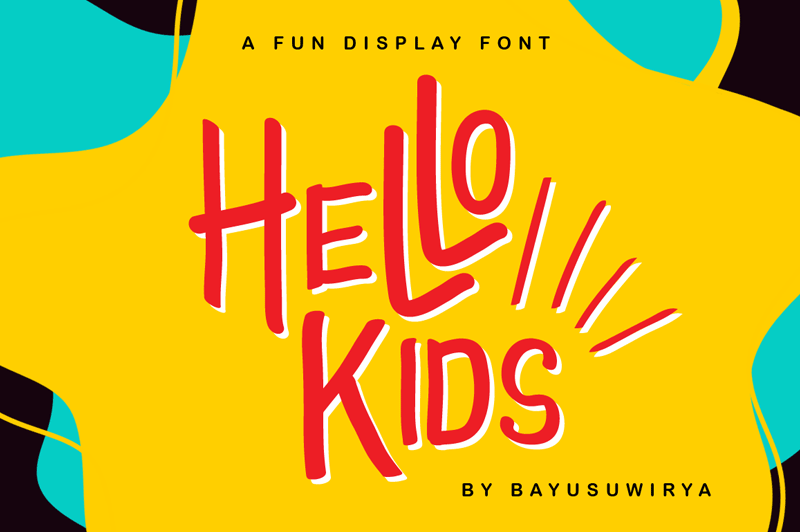
Hi Everyones,. "Hello Kids" is a joyful and charming display font. It will add a whimsical twist to any design project! For unlock all benefit of this font you can purchase at my store: https://www.creativefabrica.com/designer/illushvara/ https://graphicriver.net/user/illushvara/portfolio NOTE: This demo font is FREE for PERSONAL USE ONLY! But any donation are very appreciated because your donation will help us to create more fonts. If you want DONATE click here: https://www.paypal.me/bayusuwirya For Commercial Rights and information please contact us: illushvara@gmail.com And follow my instagram for update: @illushvara Regards, Bayu Suwirya |